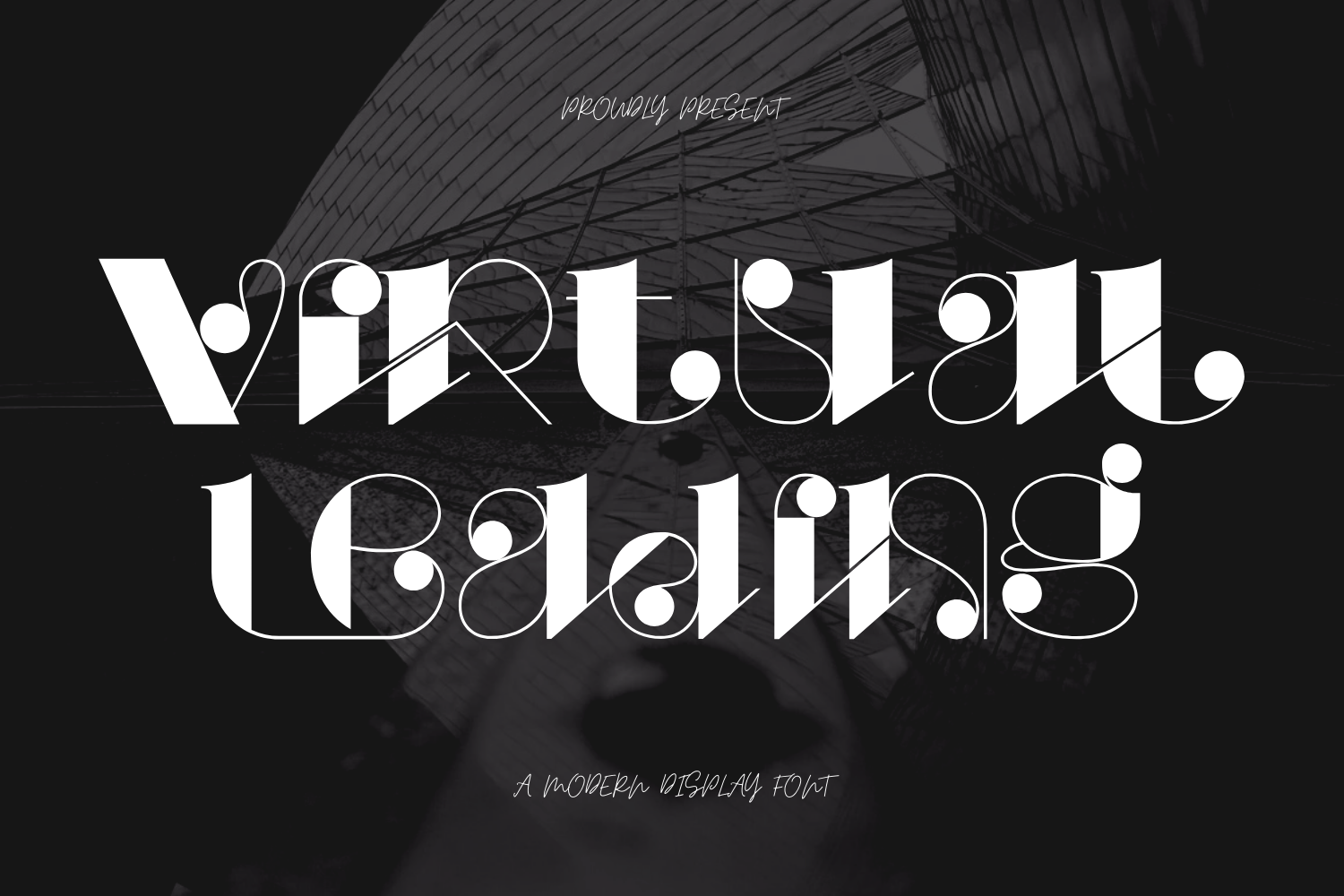
Virtual Leading Font
Virtual Leading Font is a bold display font that seamlessly blends retro charm with a modern edge. Unique and attractive style makes this font feel fresh and characterful, has an abstract shape but is still connected to each other. Featuring two versatile styles (Regular and Bold) it offers flexibility for a wide range of creative projects. With its unique contrasts and playful design, it's perfect for branding, posters, and striking headlines.
Virtual Leading was built with OpenType features and includes 100 ligatures, alternate, numbers, punctuation, and it also supports other languages.
AC AD AL AN AR AS AT AU AV BE CA CE CH CO CT DE DI EA EC ED EE EL EM EN EP ER ES ET FE FO FR GE HA HE HI HO IE IC IL IN IO IR IS IT JU KE LA LE LI LL LO LY MA ME MI NC ND NE NG NO NT NS OC OF OM ON OO OP OR OT OU OW PA PR RA RD RE RI RO RS RT SE SH SI SO SS ST TA TE TH TI TO TR TT UM UN UR VE WI WO